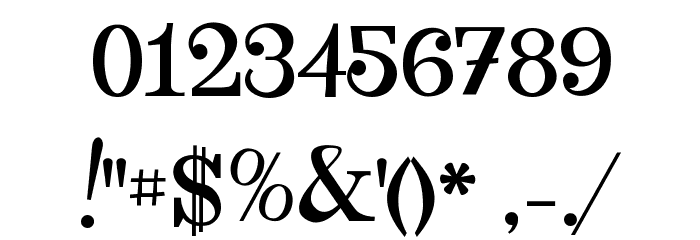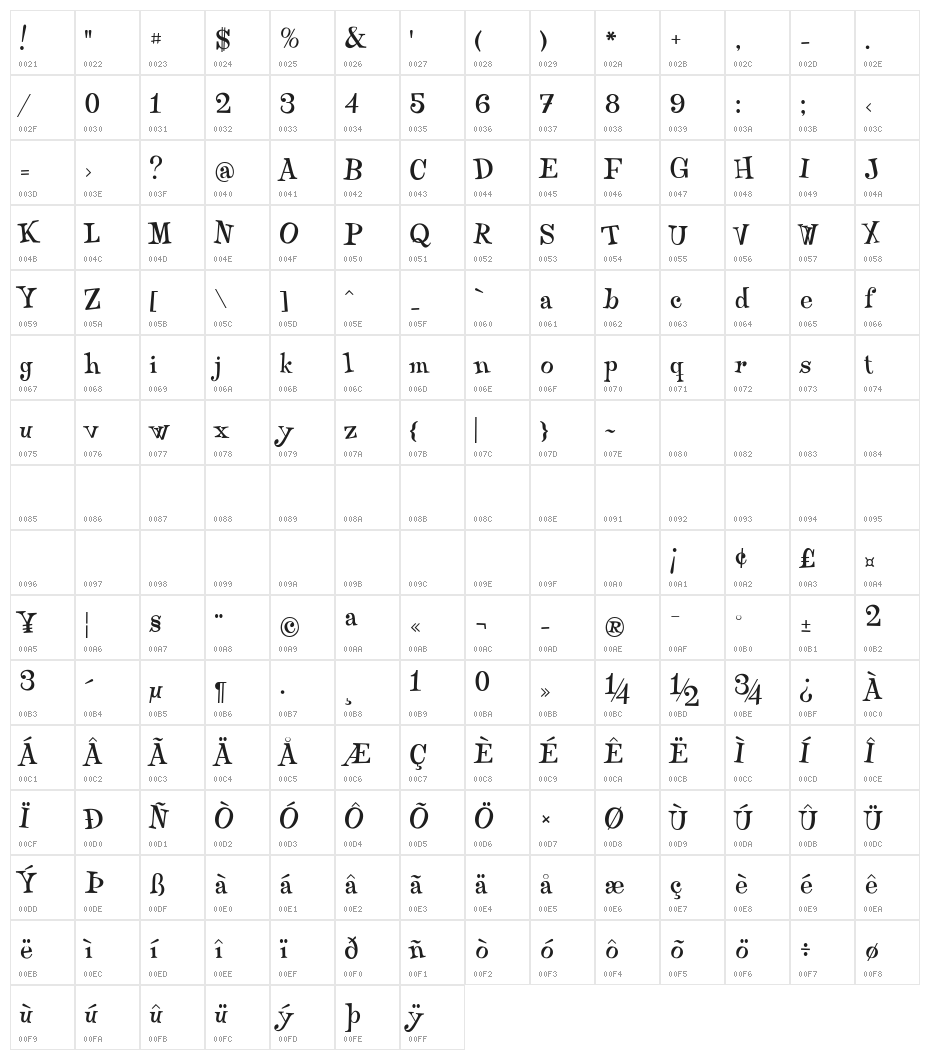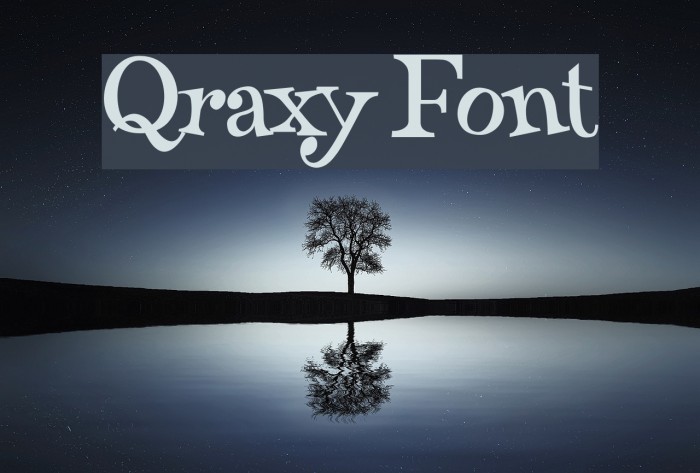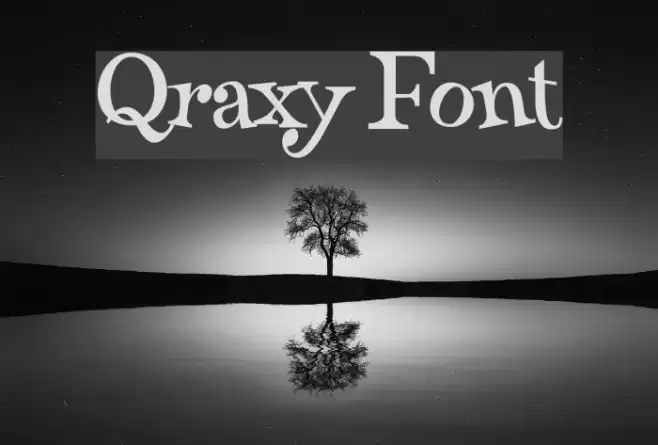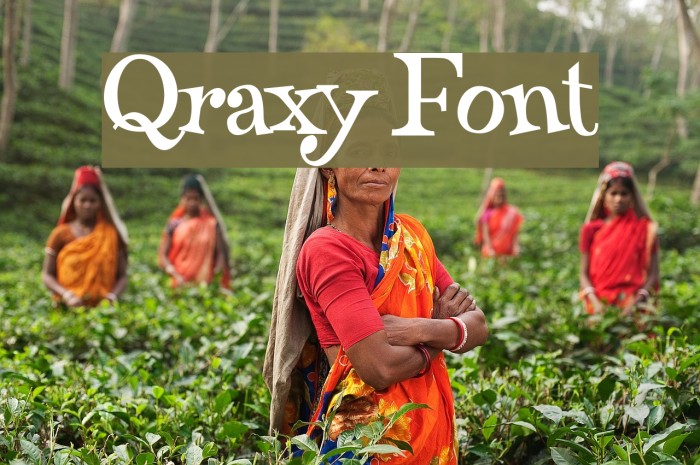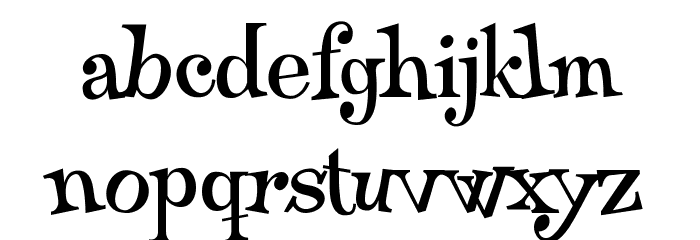
Qraxy Font
Qraxy Description
This font features a bold and dynamic style with a strong presence. The uppercase letters are characterized by their sharp serifs and slightly exaggerated curves, giving them a distinctive and eye-catching appearance. The lowercase letters maintain a consistent style, with smooth curves and a balanced weight that complements the uppercase set. The numerals are bold and clear, ensuring readability, while the special characters are designed to match the overall aesthetic, providing a cohesive look across all glyphs. This font's unique style makes it suitable for projects that require a touch of elegance and flair.
| Proposed Projects | Ideal for branding, headlines, posters, and editorial design. |